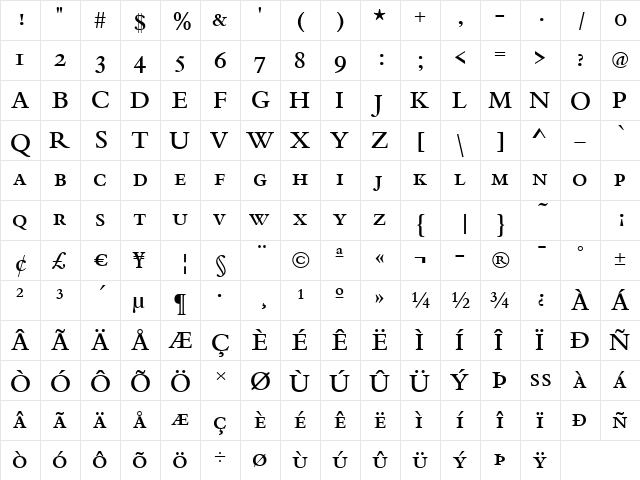
Bergamo-Caps Bold
Design Context for Bergamo-Caps Typeface
Bergamo-Caps offers clean, dependable letterforms without strong stylistic allegiance, making it a practical choice for designers who need flexibility. Its bold stroke weight gives it real presence on the page.